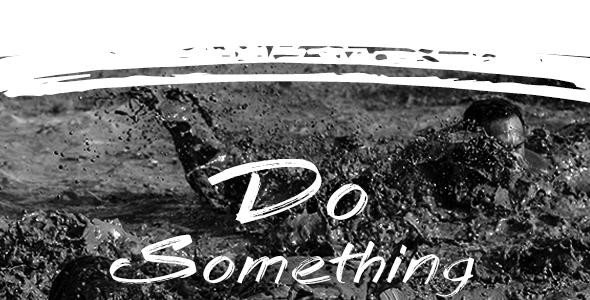
Formula X Font
Formula X, a handwritten font. drawn with sketch marker. It gives a complete authentic feel on your text. Total 118 glyphs are included including alphabets, numerals and special characters. both TTF and OTF file included. Exclusively on Graphicriver.